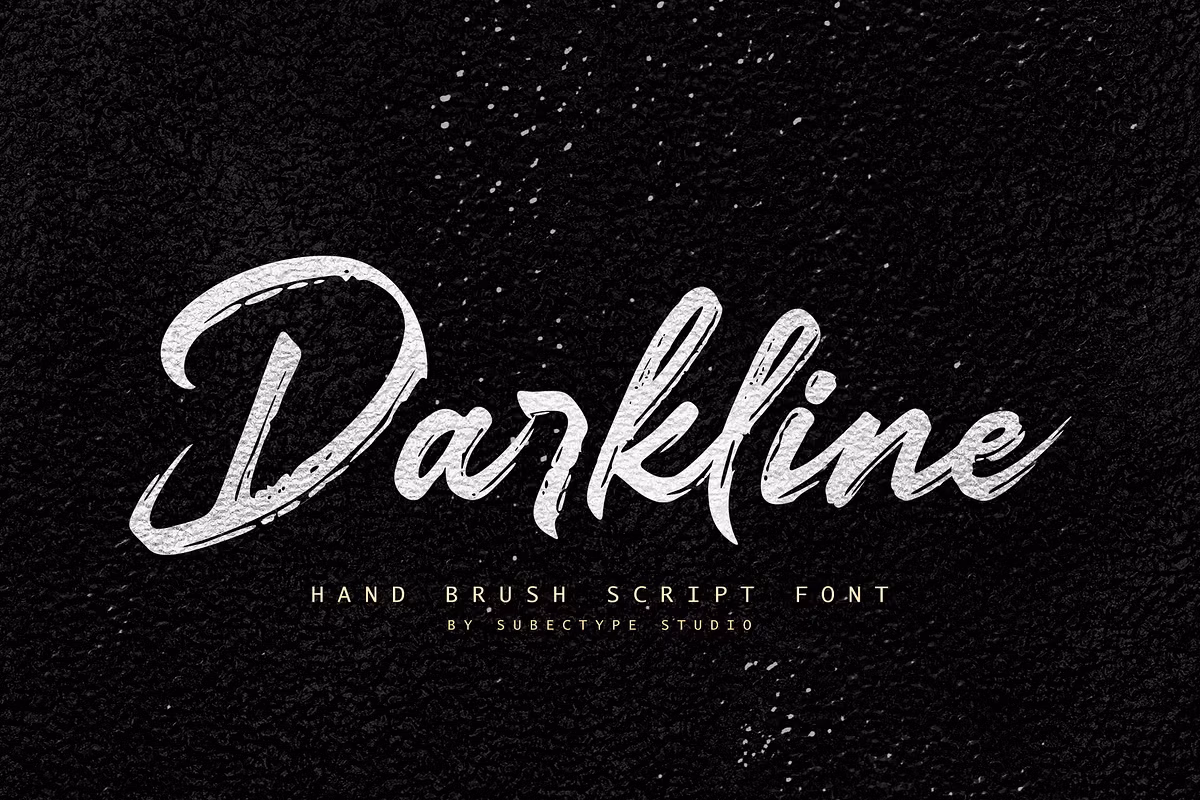
Darkline Font Free Download is a bold and expressive brush script typeface that brings energy, attitude, and handcrafted character to your designs. With dynamic strokes, textured edges, and natural flow, Darkline is perfect for logos, apparel, posters, album covers, and social media graphics that need a raw, artistic vibe.
Inspired by street art and modern calligraphy, Darkline Font Free Download delivers powerful visual impact with its rough brush style and fluid motion. It’s ideal for designers looking to create bold statements with a touch of rebellion and personality.
Darkline works great as a headline font or layered with grunge elements to create an edgy, urban aesthetic. It pairs well with sans-serifs for contrast, allowing you to craft striking and energetic compositions that stand out across digital and print media.